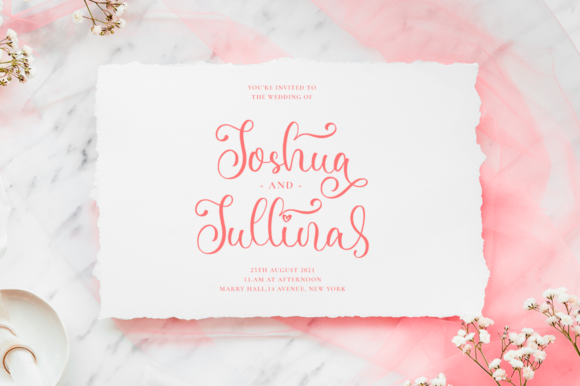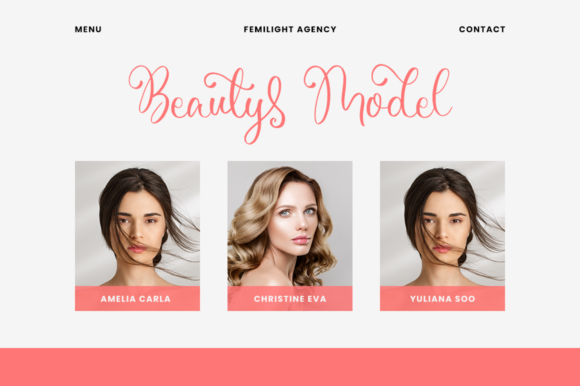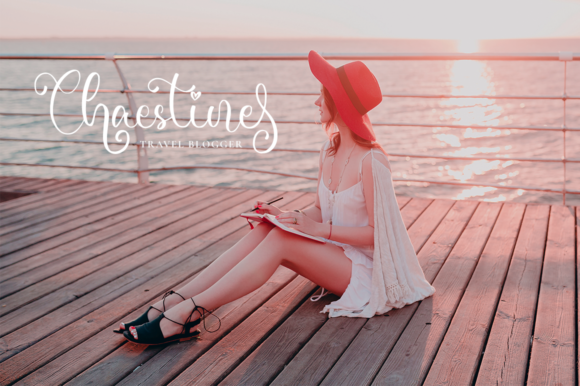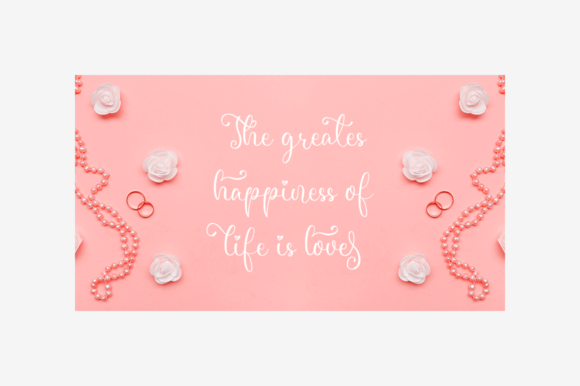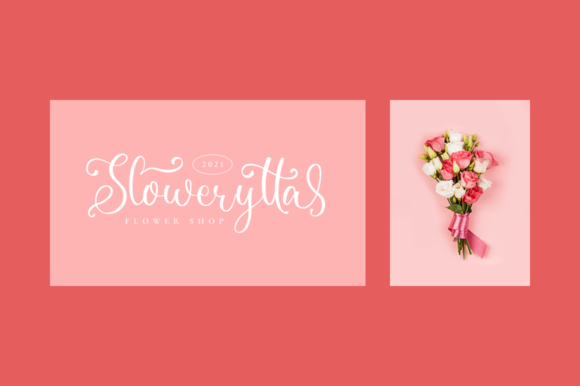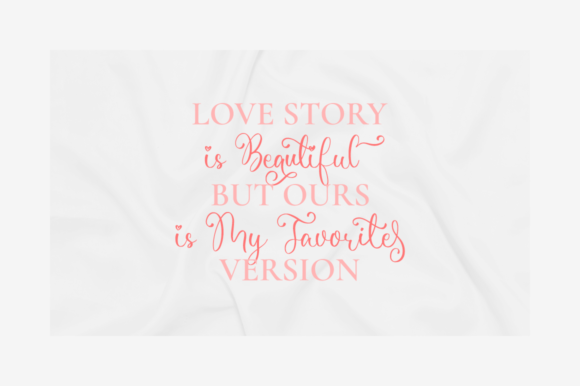
Introduction to Kindlove Font
Kindlove is an equally sophisticated and lovely handwritten font that’s great for delivering any message with confidence, authenticity and charm.
It will elevate a wide range of crafting ideas, from cards, to branding, labels and much more .
Kindlove Font offers exceptional quality and versatility, making it a valuable addition to your design toolkit. Whether you’re creating for personal projects or commercial use, Kindlove Font delivers professional results.